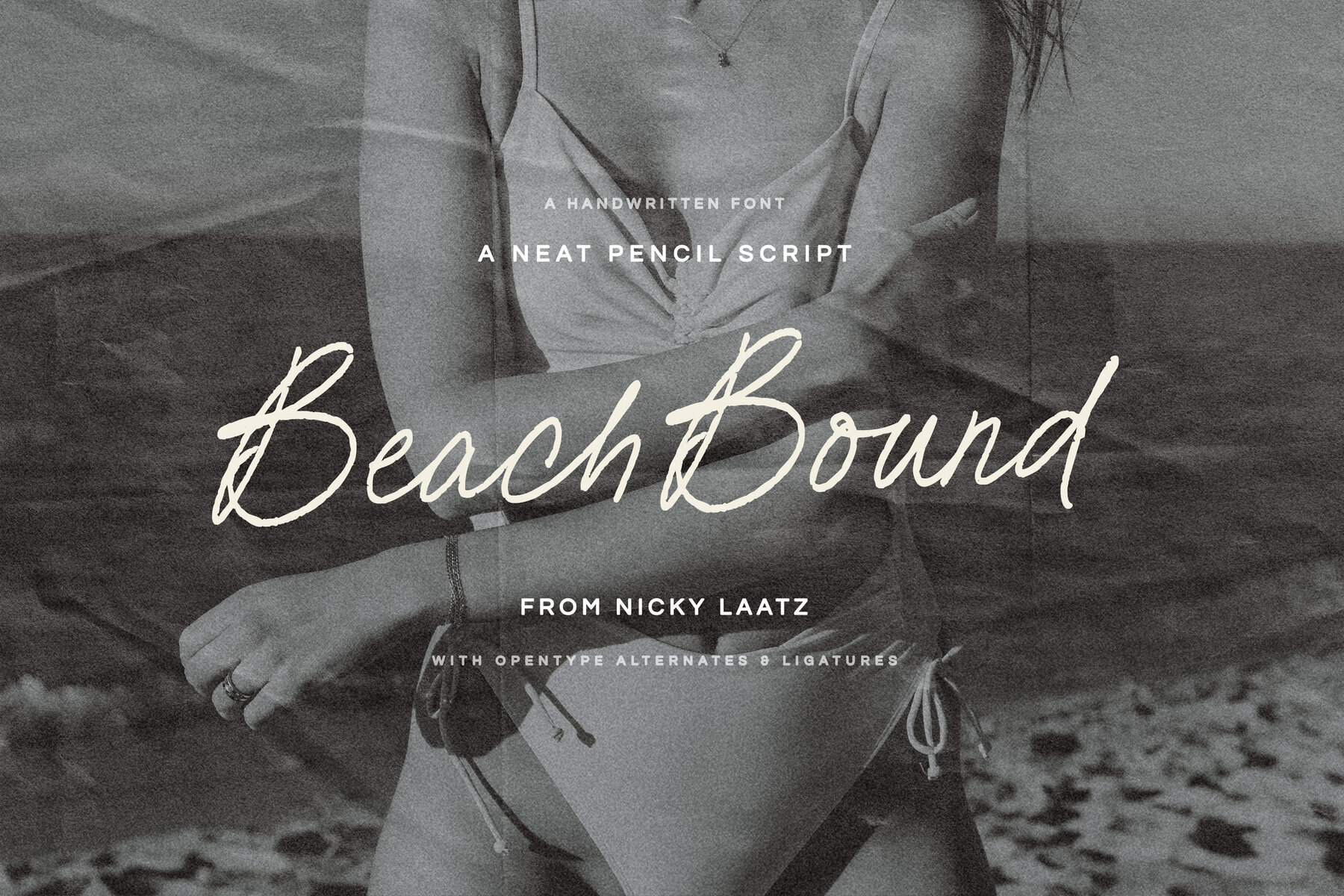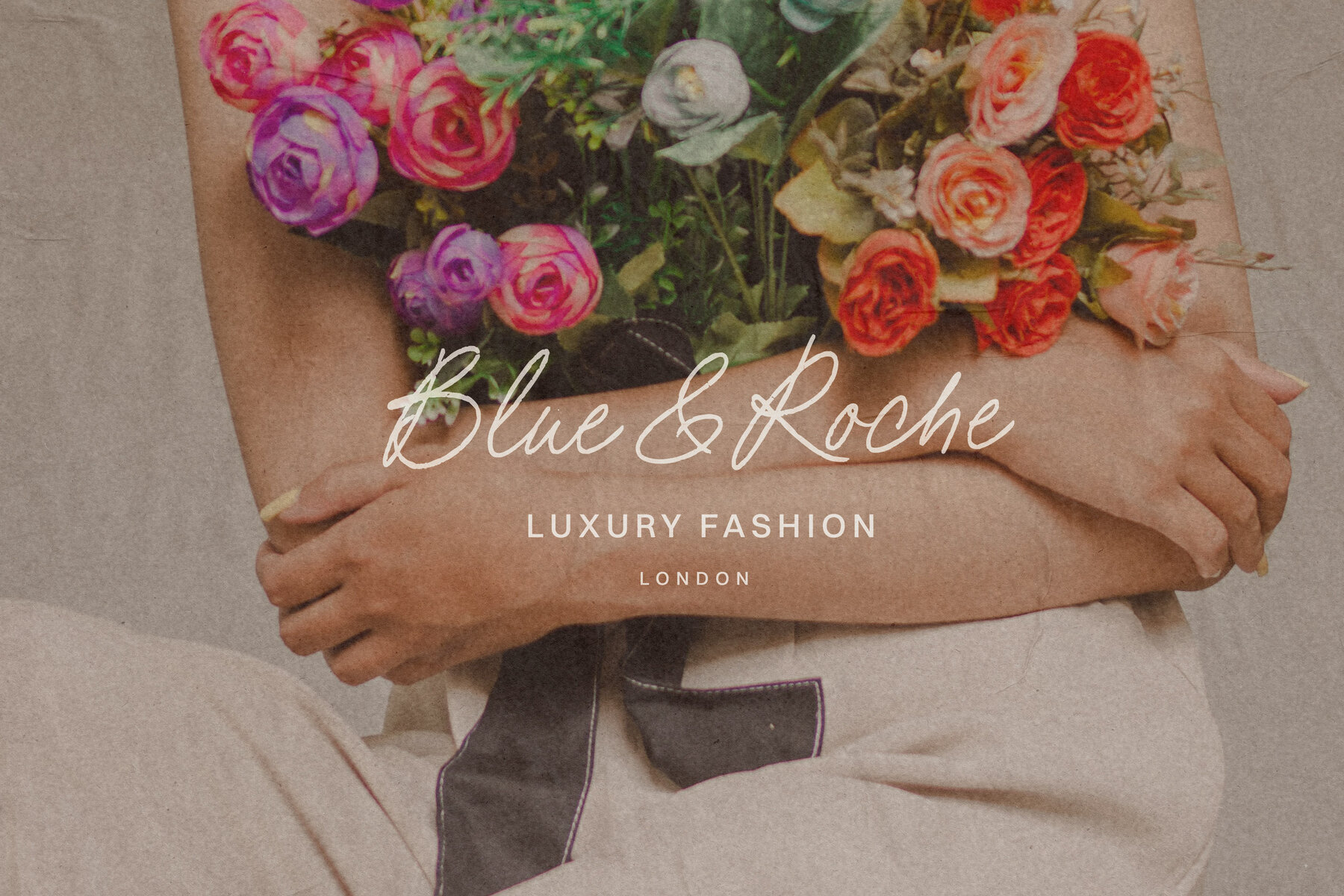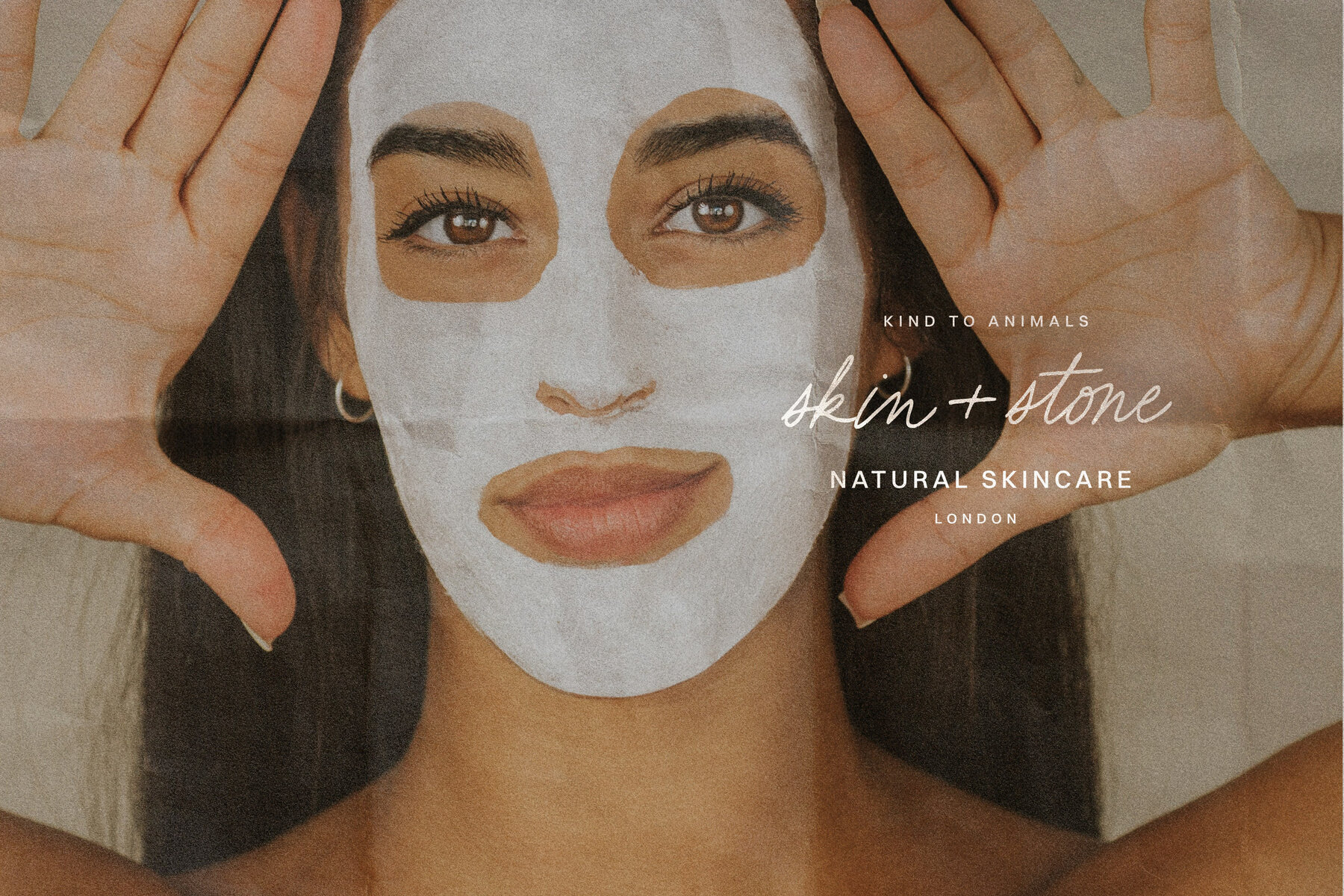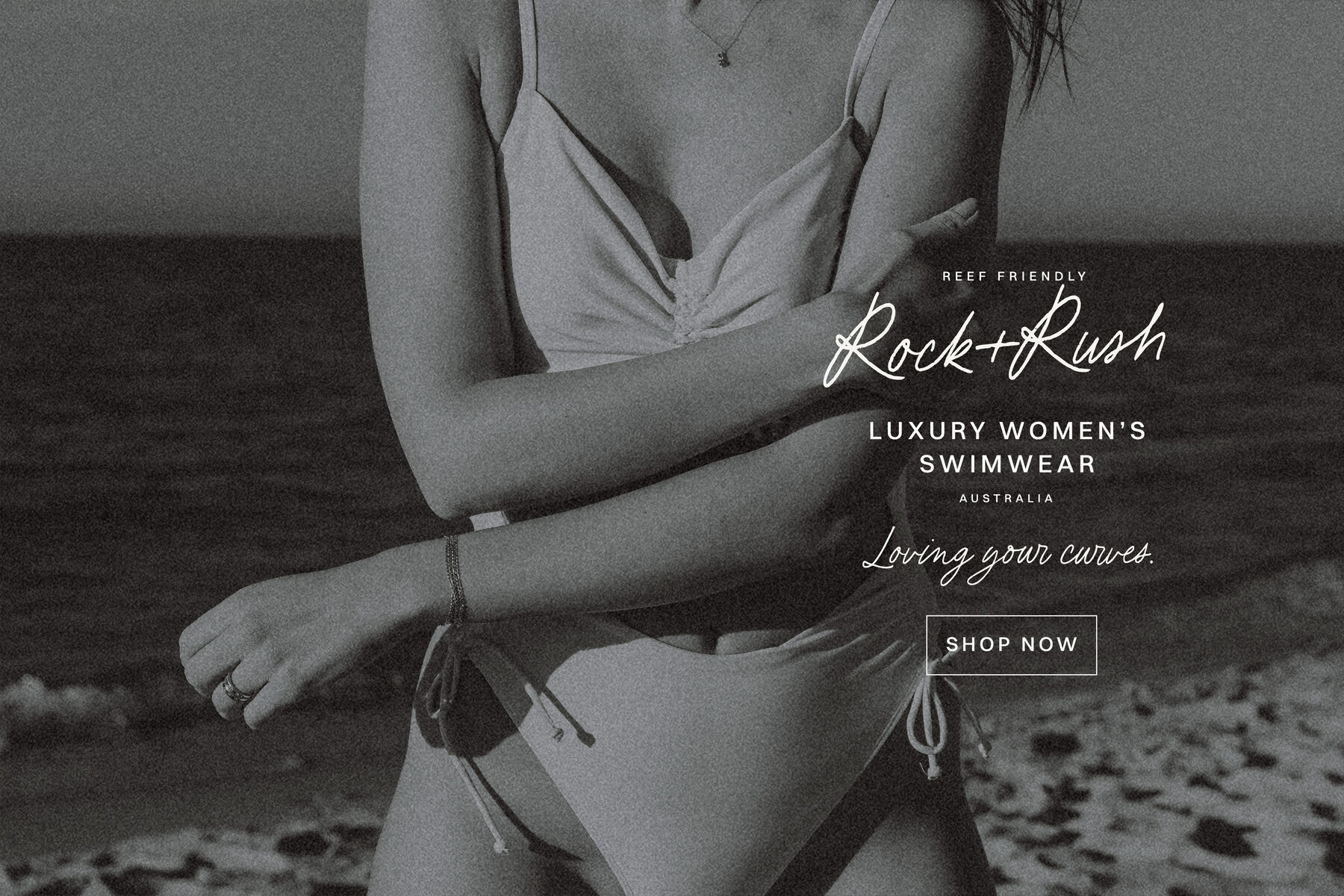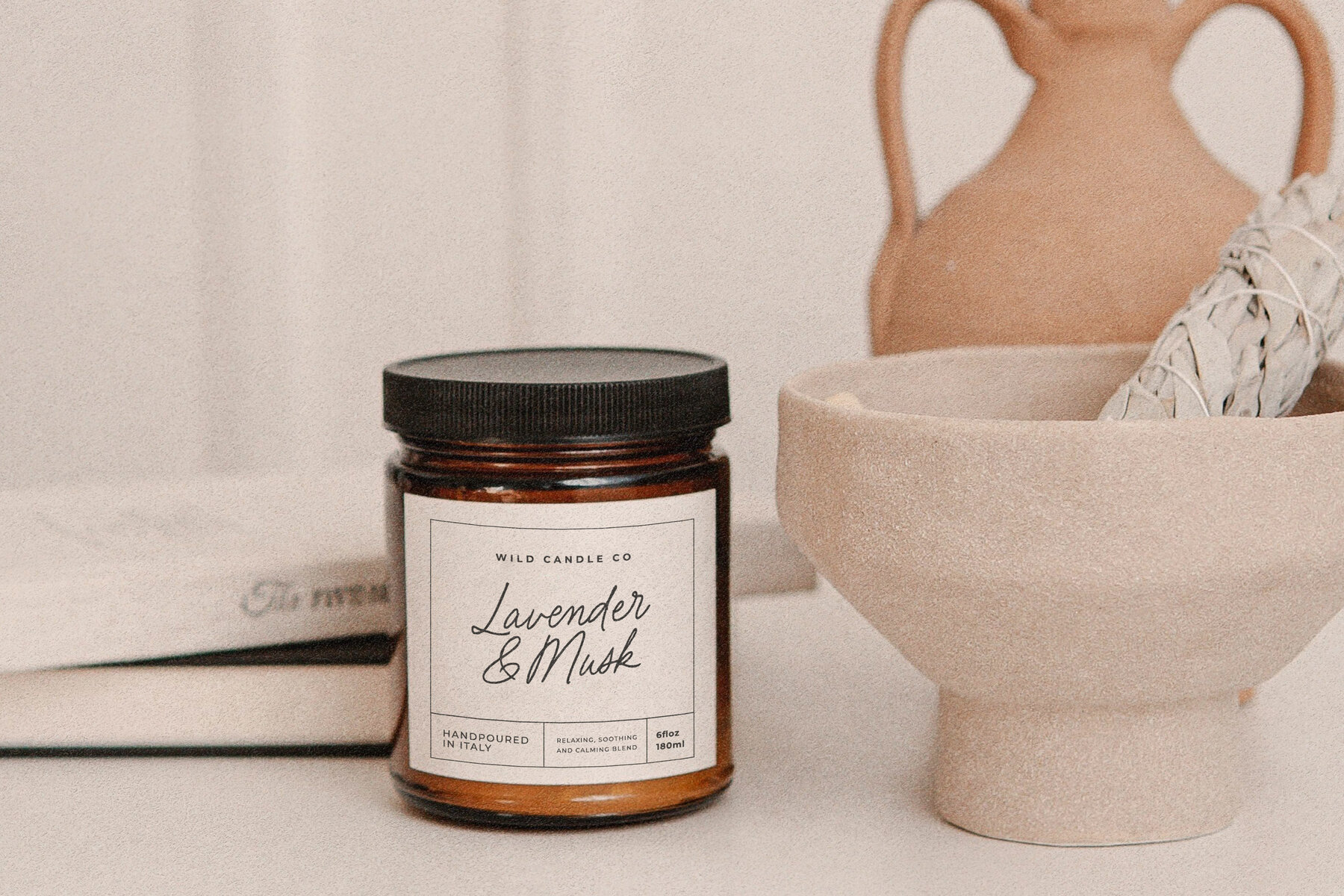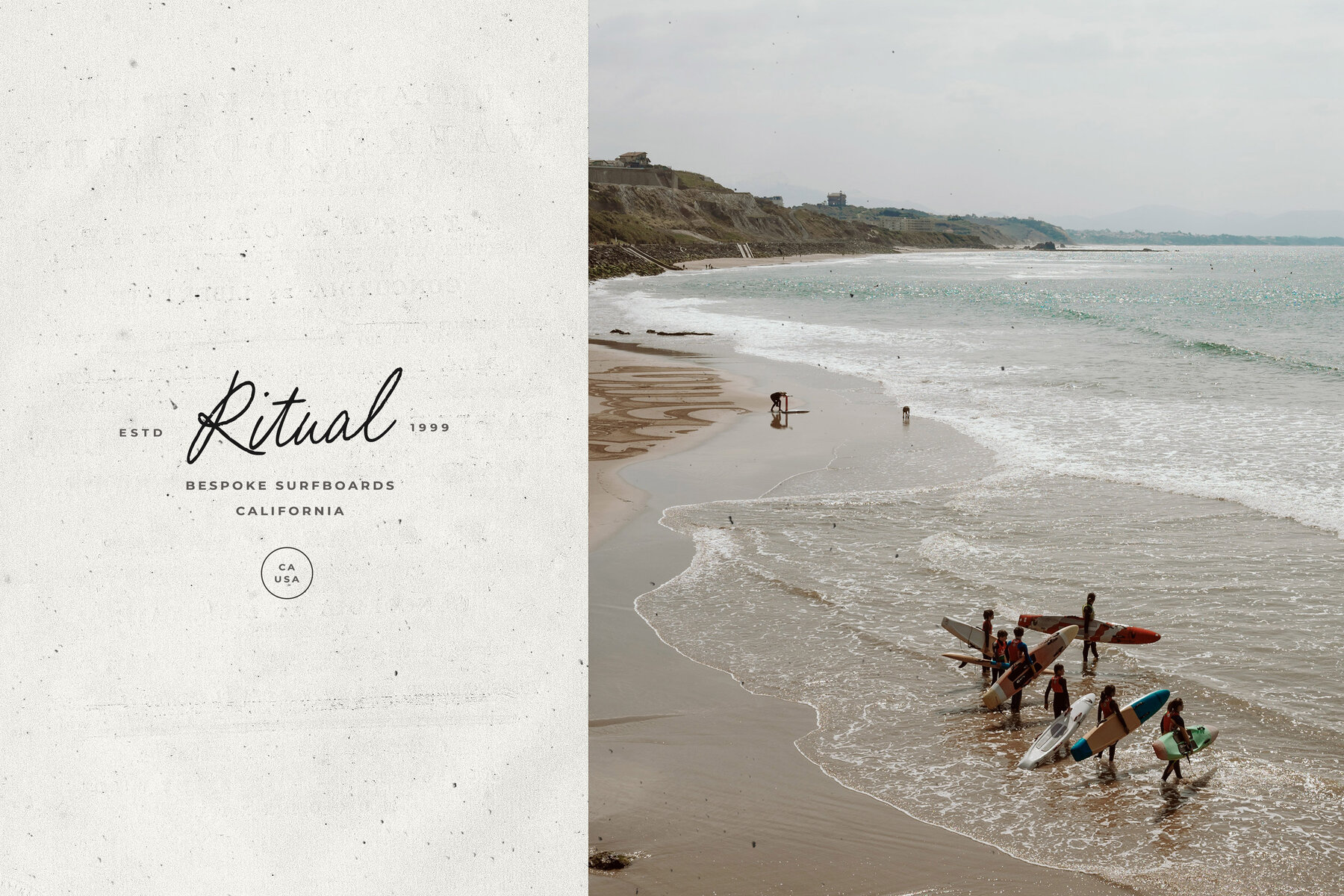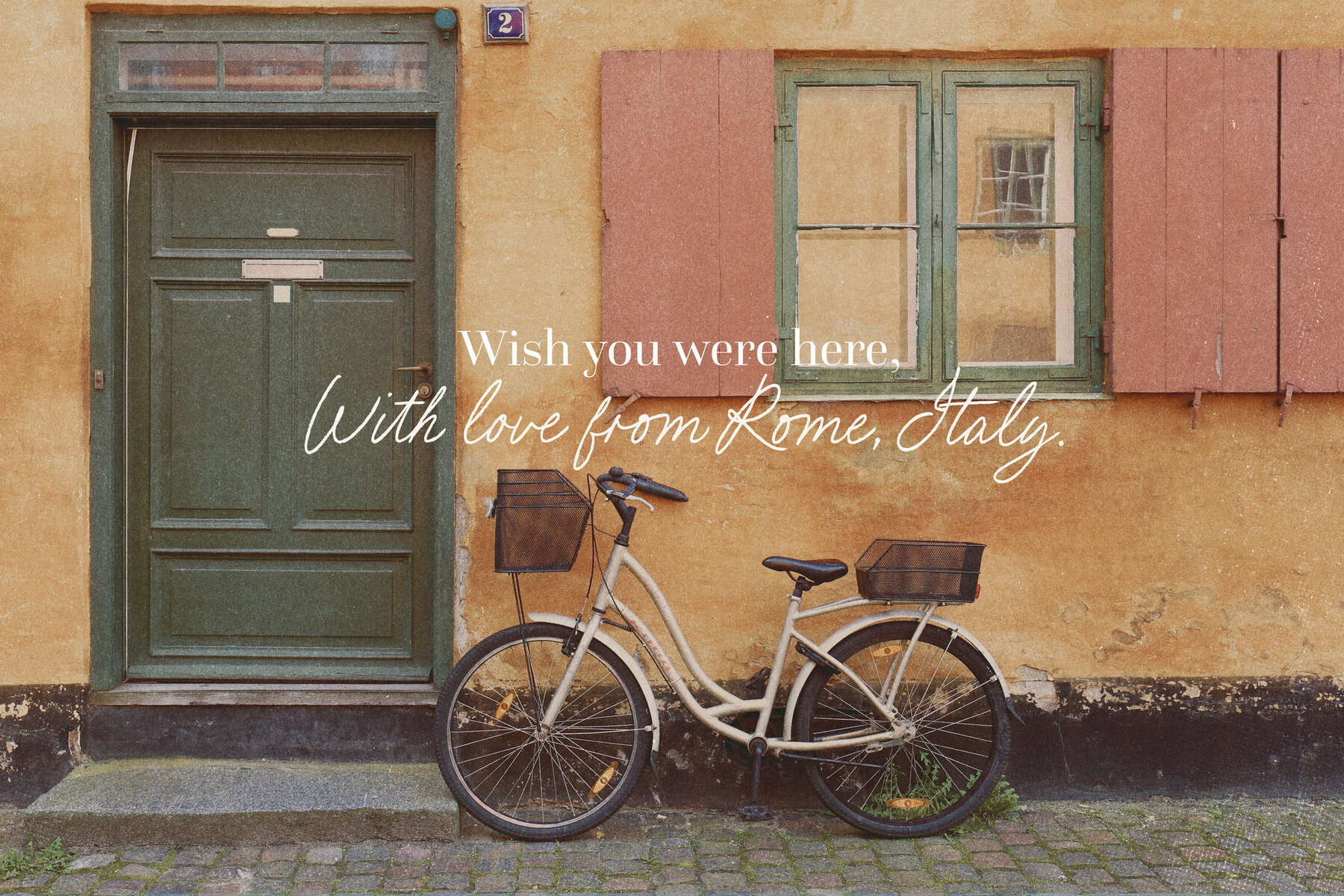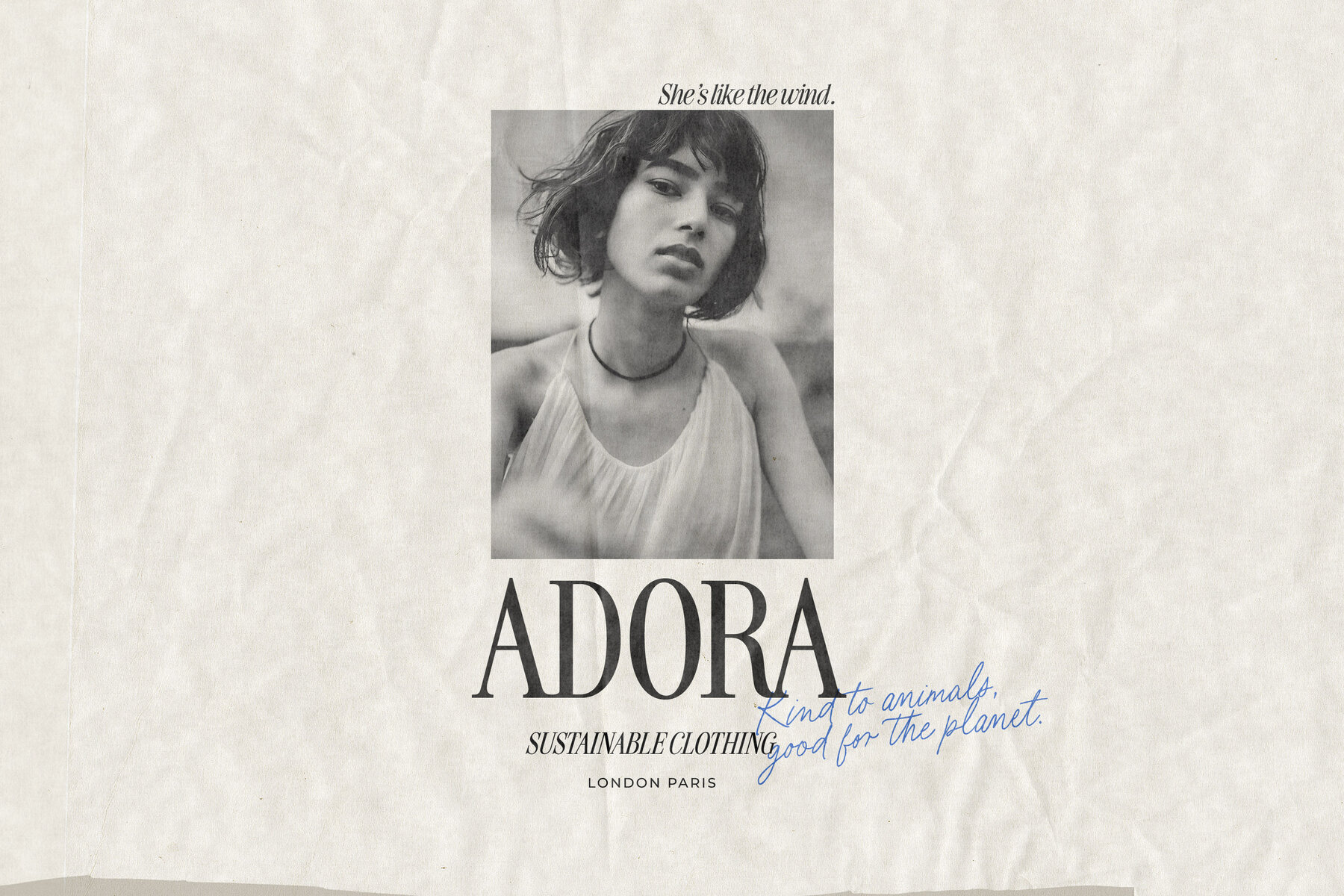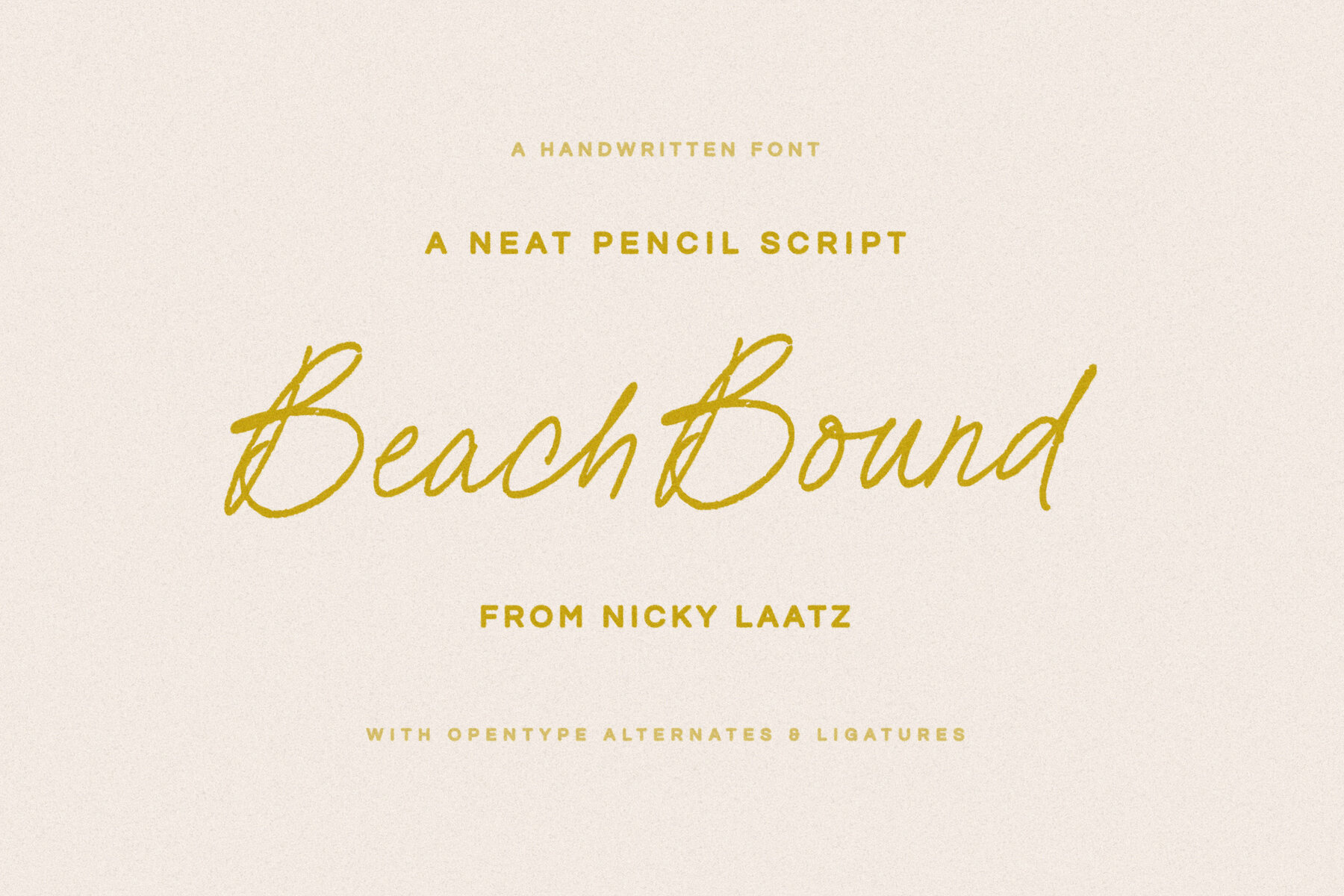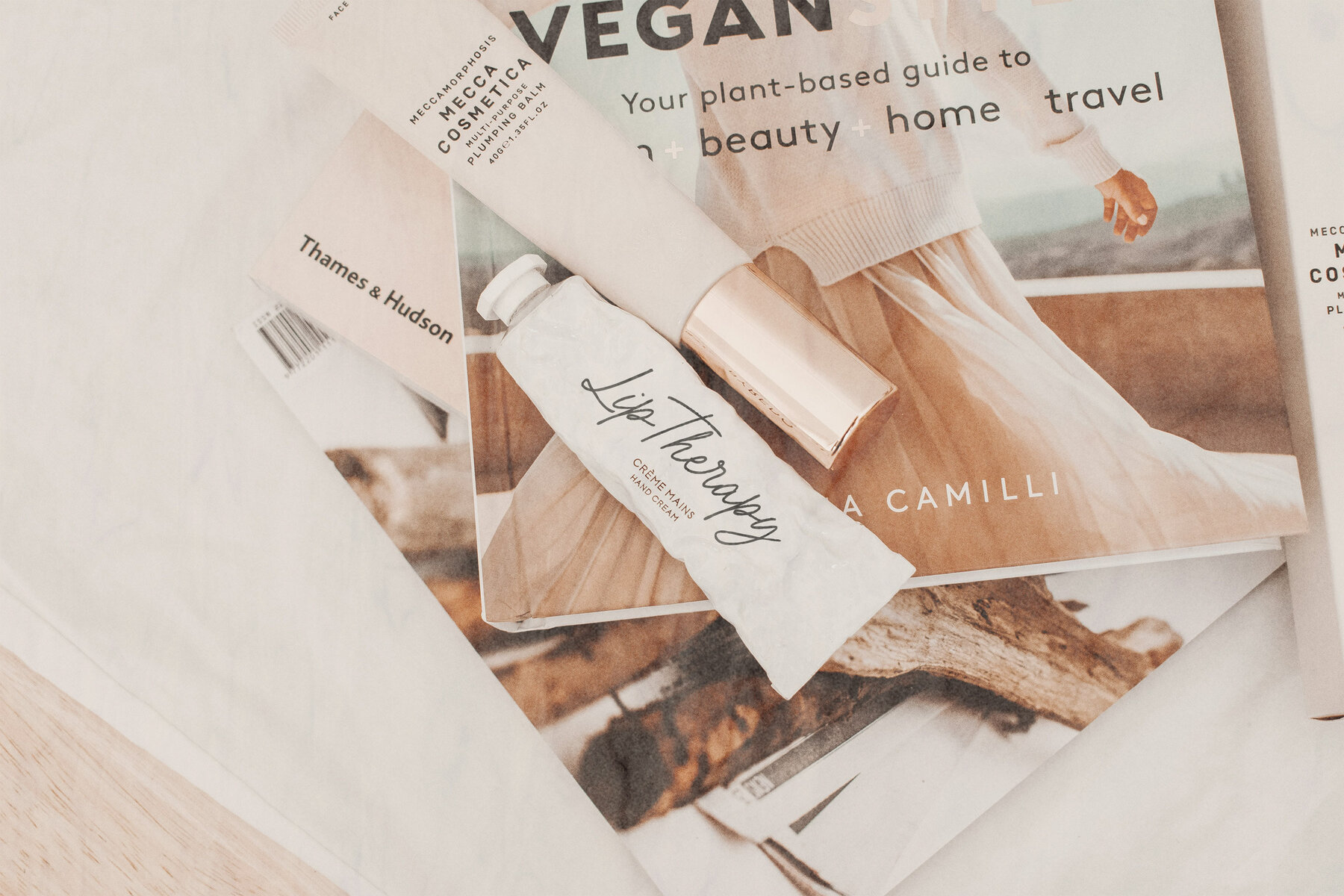
Beach Bound Pencil Script Font
Are you searching for the perfect complement to your graphic design projects? Allow us to introduce you to the classy, chic, and exceptionally versatile Beach Bound Pencil Script. This exquisite hand-lettered script, brought to life by renowned designer Nicky Laatz, is a testament to the power of understated elegance in design, while simultaneously fusing functionality with form. Each unique stroke of Beach Bound Pencil Script echoes authenticity, owing to its creation from real pencil handwriting. This individual quality, amalgamated with enhanced OpenType ligatures and alternates, injects an unparalleled touch of reality into your work, thereby transforming every art-piece or marketing project into a captivating narrative replete with its own respective personality. Highlighting Key Features:Discover the Elegant Simplicity of Beach Bound Pencil Script